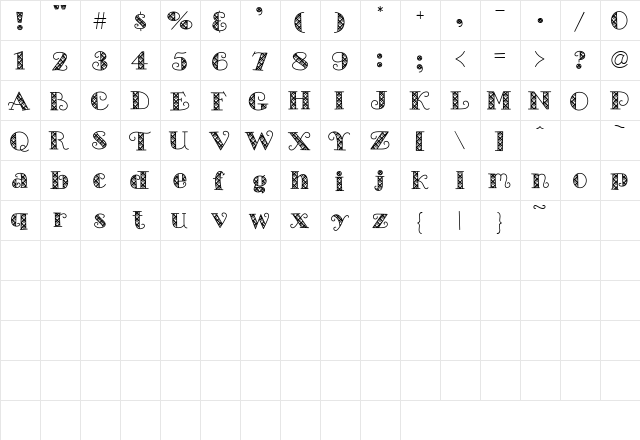
Scrap Plaid Regular
Design Context for Scrap Plaid Typeface
Scrap Plaid is a composed and adaptable typeface that performs quietly and consistently across a wide range of design contexts.
Pro Tip: Use Scrap Plaid in both headline and body roles to test its range before committing to a single application.